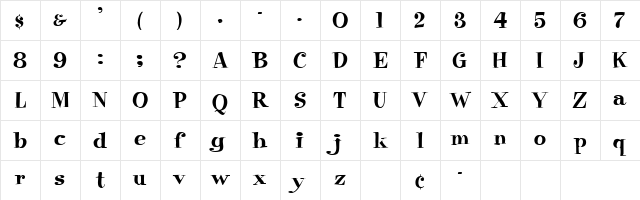
Pixie Regular
Design Context for Pixie Typeface
Pixie takes a measured approach to typography — its balanced proportions and neutral character make it a reliable workhorse for both digital and print work.